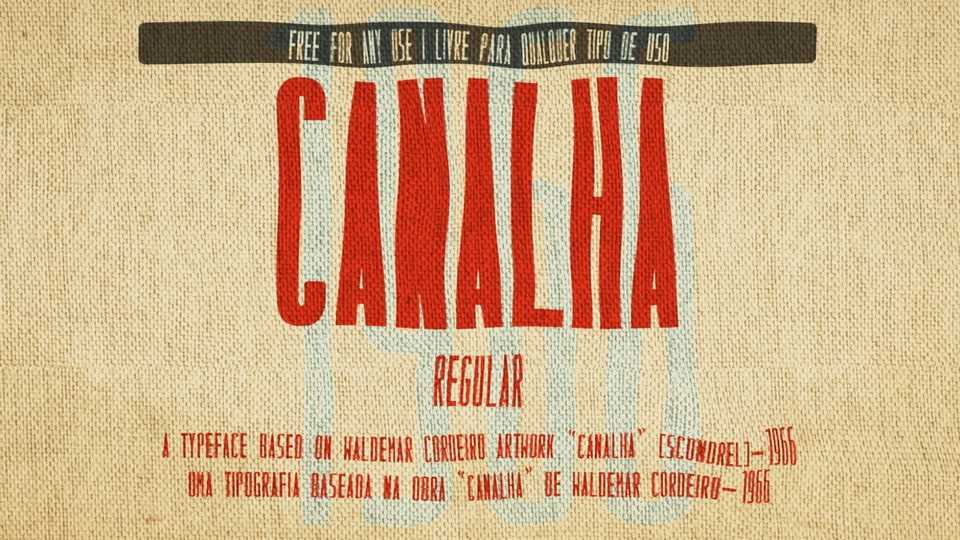
Download Canalha font, an ultra-condensed display typeface inspired by Waldemar Cordeiro’s striking 1966 artwork of the same name. Whether used in minimalist layouts or radical compositions, Canalha provides a sharp, uncompromising visual voice.
Designer: Mateus Pelanda